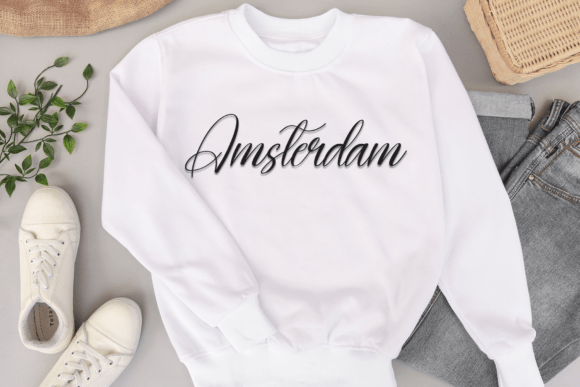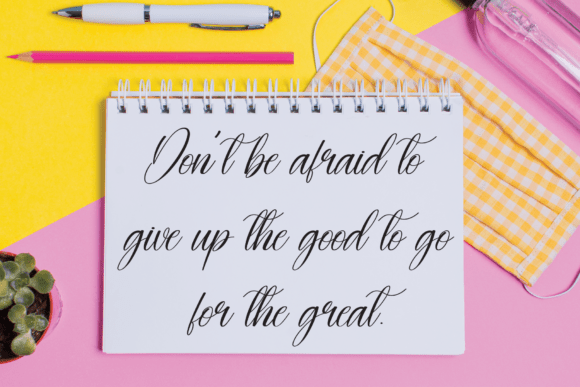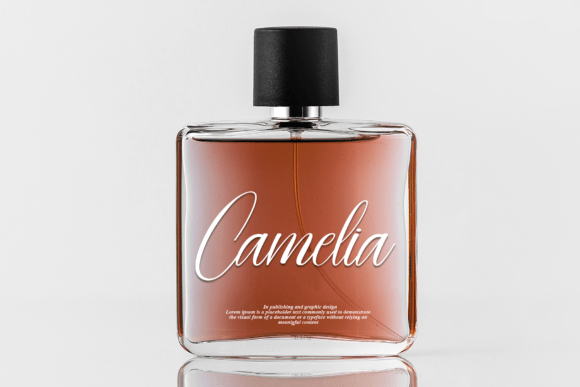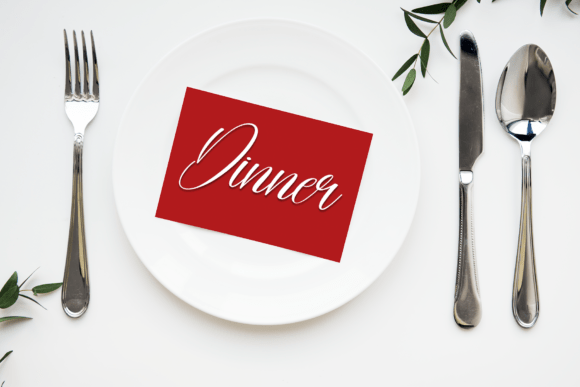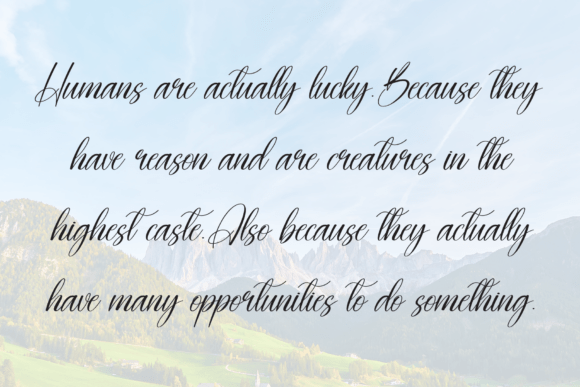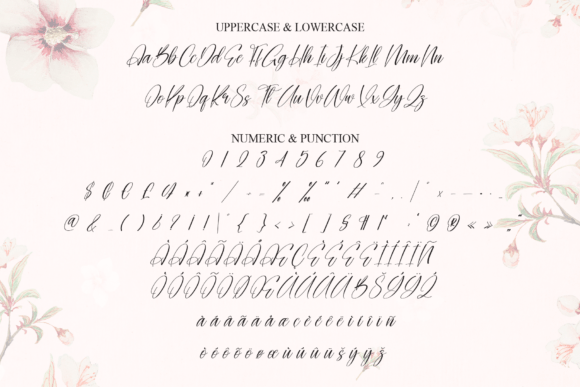
Introduction to Daisy Signature Font
As a designer, there’s nothing quite like the thrill of bringing a creative project to life. You’ve spent hours pouring over every detail, from the colors to the typography, and finally, you’re ready to add the finishing touches. But what if you could take your design to the next level with a font that exudes elegance and sophistication? Enter the Daisy Signature Font, a refined handwritten script font that’s about to become your new design BFF.
This gorgeous font is more than just a pretty face – it’s a valuable design resource that can elevate any project from basic to brilliant. With its high-quality curves and natural flow, the Daisy Signature Font is perfect for luxury packaging, wedding invitations, and stylish social media posts. Plus, with a transparent background, you can easily layer it over any image or design element, giving you complete creative control.
Key Features of Daisy Signature Font
- High-quality design: The Daisy Signature Font is designed with precision and care, ensuring a professional and polished look for any creative project.
- Transparent background: This font features a transparent background, making it easy to layer over images or other design elements without any distracting background noise.
- Unique characteristics: The Daisy Signature Font features a unique and stylish design, with intricate details and flourishes that set it apart from more generic fonts.
- Perfect for creative projects: This font is ideal for use in creative projects, such as logos, business cards, invitations, and other design elements where a touch of elegance is required.
Honest Review: Daisy Signature Font
As a designer, I’m always on the lookout for high-quality design resources to elevate my creative projects. The Daisy Signature Font has caught my attention, and I’m excited to share my honest review.
- ✨ Beautiful and elegant script font design that’s perfect for wedding invitations, greeting cards, and other special occasion projects.
- ✨ Transparent background, making it easy to place on any image or background.
- ⚠️ Limited character set, which may require some extra work if you need to use special characters or languages.
Overall, I’m impressed with the Daisy Signature Font’s quality and versatility. It’s a great design resource for personal or small-scale projects, and the free download makes it an attractive option. While it may have some limitations, I think it’s worth considering for your next creative project.
For a high-quality design, use the Daisy Signature Font on a transparent background. This will allow your creative project to stand out and make it easier to place over other images.
Use the Daisy Signature Font in a variety of creative projects, such as logo design, business cards, and social media graphics.
The Daisy Signature Font is perfect for:
- Logo design and branding
- Business card design